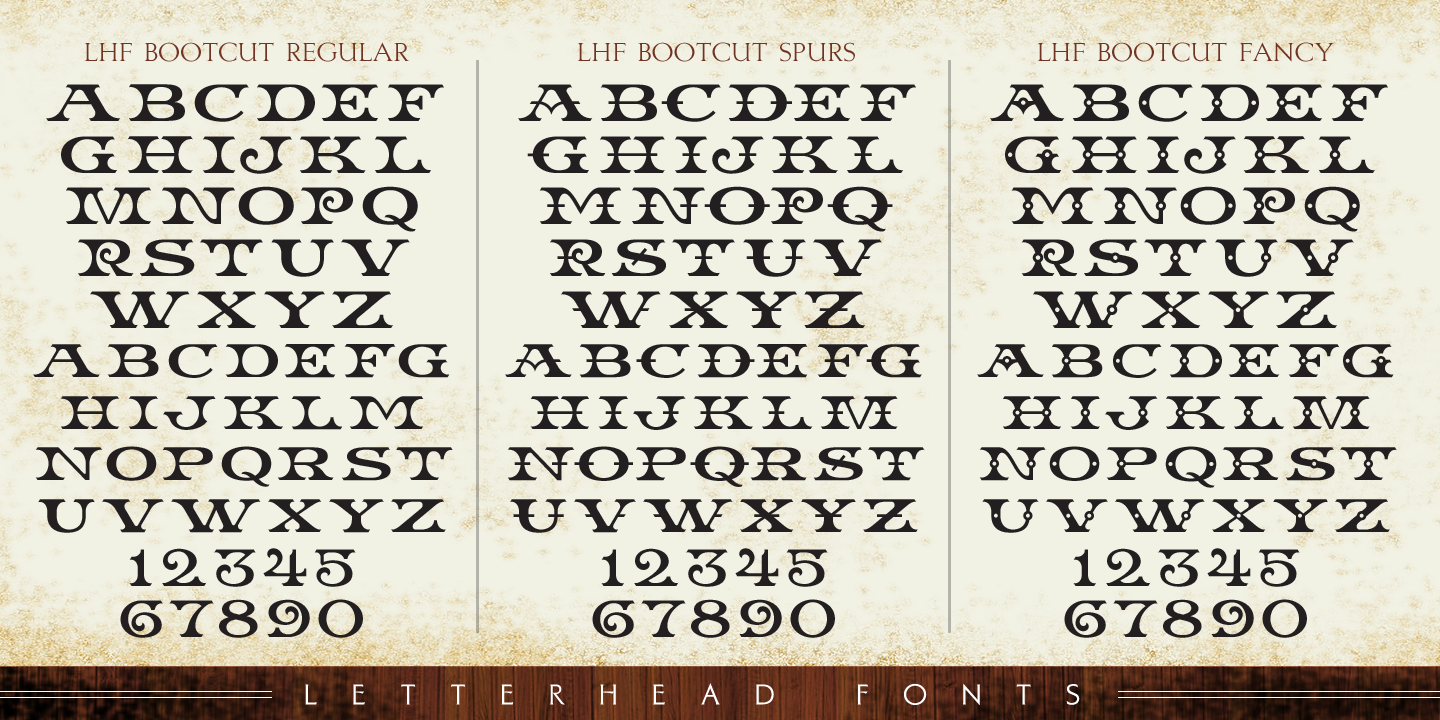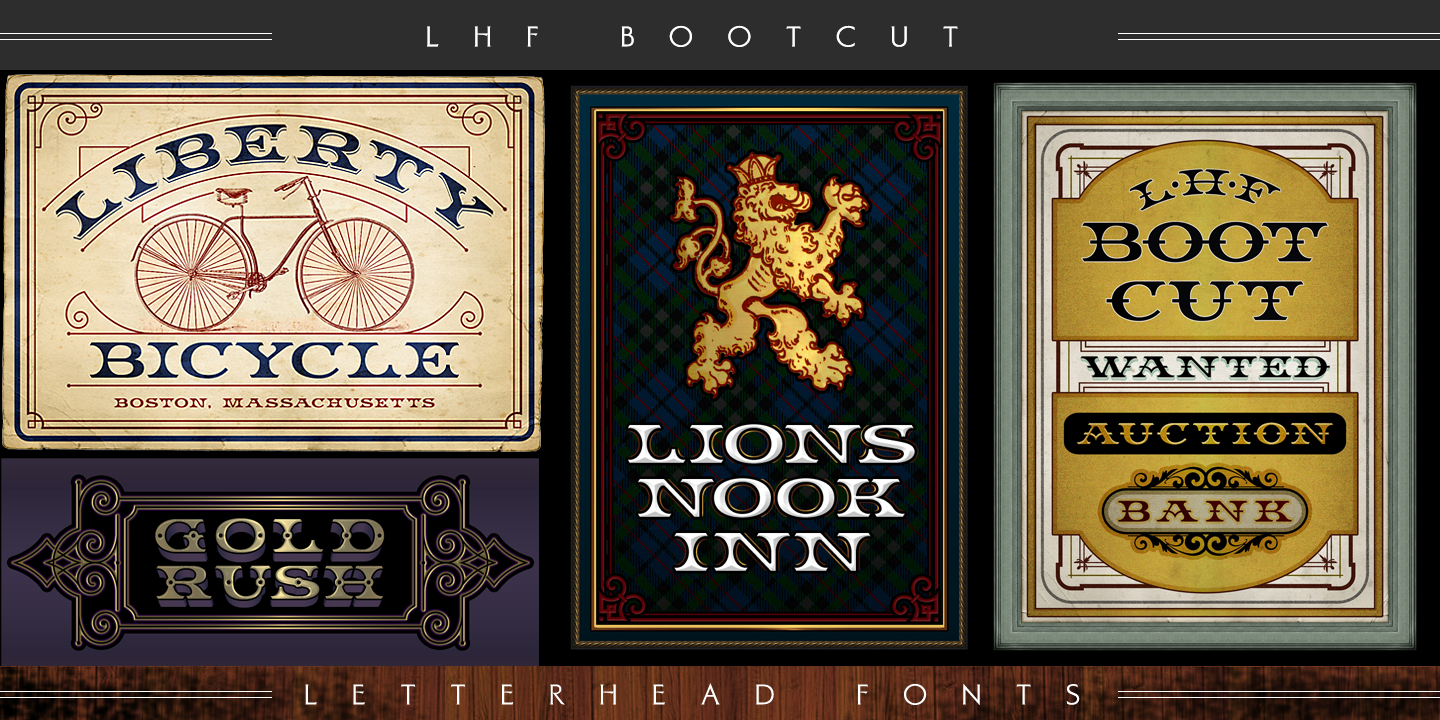
Working with letters is something I started back in 1989 when I started working for Baldwin Designs, a wood sign company in Concord, Massachusetts. I went there after school and learned how to hand carve letters into wood.
Then I continued my education by taking the 2-year full-time course in sign painting at Butera School of Art in Boston, courses with Jay Cooke at Vermont Sign School, night school programs on graphic design at the Art Institute of Boston, and I was lucky to receive a 4-day semi-private class on reverse glass painting & gilding from Rick Glawson at Fine Gold Sign Co. in Wilmington, CA.
Signs, letters, and advertising started to take me over and I became a hazard on the roads as I was trying to drive while signs kept catching my eyes.
Font design did not come to me until 1998 when I started designing some script letters that I loved from some old adverising. That fizzled out until the year 2001 when I managed to complete a script font being motivated by Chuck Davis at LetterheadFonts. The response was much better than I expected, so I continued on with more fonts. With my passion being in antique advertising and sign design, my goal was to design fonts that worked well recreating old advertising style designs.
I hope these fonts, offered under the foundry name of Thomas Kennedy, help as a tool to achieve a look that let your design stand out from the rest!
Tom grew up in Concord, Massachusetts, and now resides in Sweden.